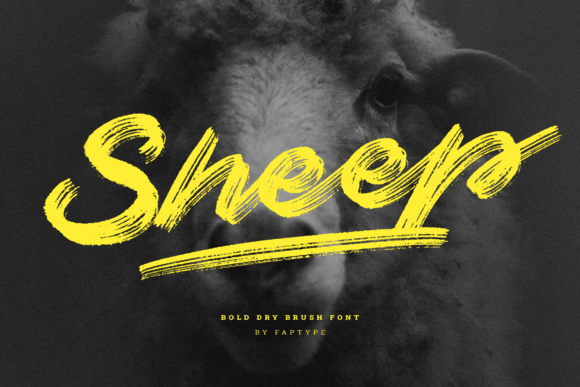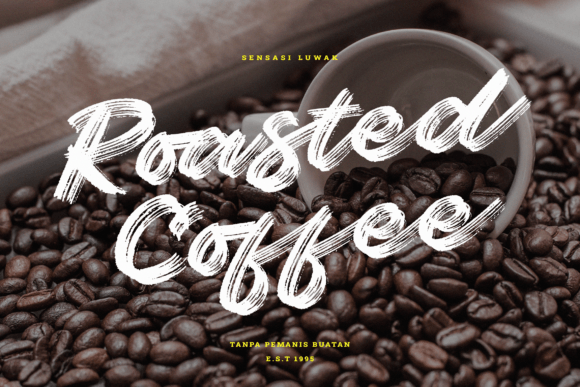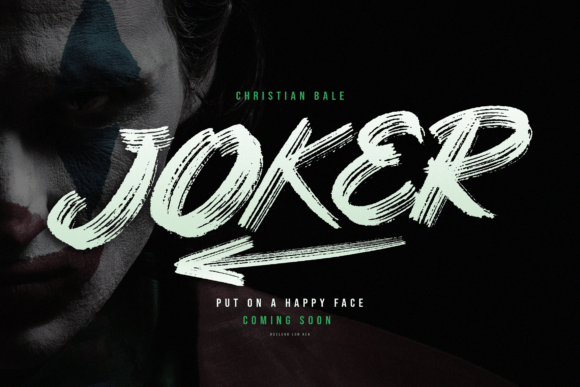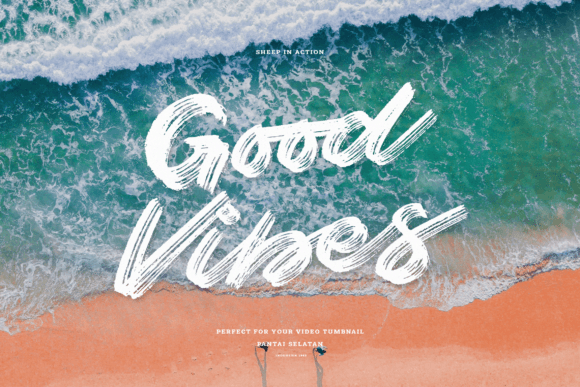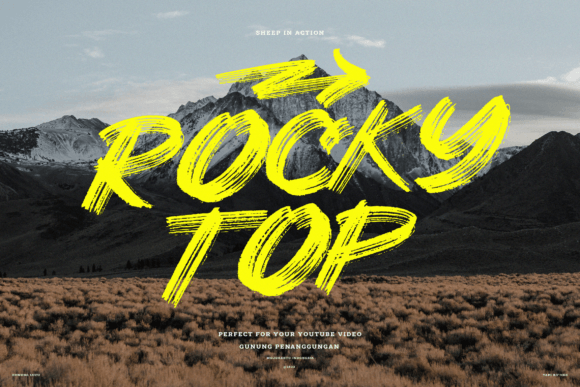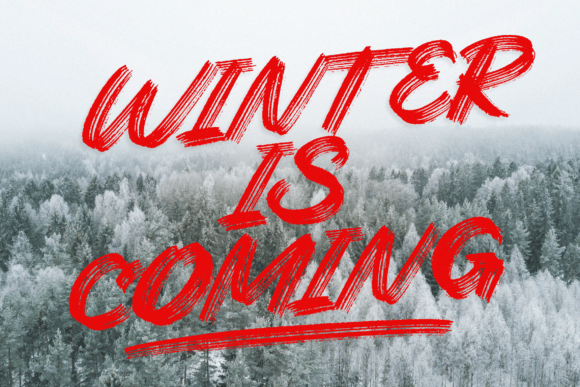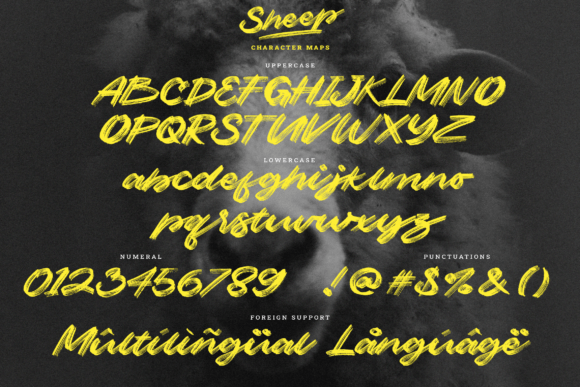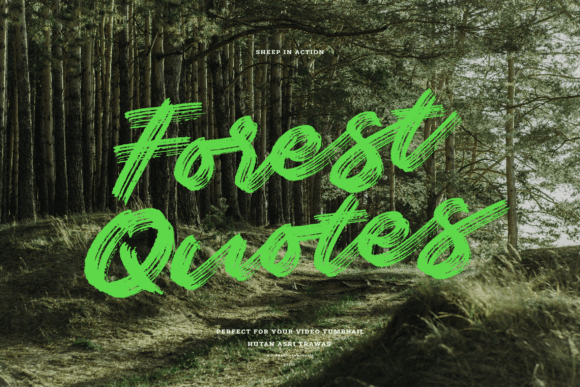
Sheep Font
Add Unique Brush Style with Sheep Font
Sheep Font is a unique dry brush handwritten typeface created using realistic brush strokes. This font brings an authentic and artistic feel to your creative projects. Whether you are designing branding materials, posters, social media graphics, or invitations, Sheep Font adds a bold and natural look that stands out.
Moreover, its textured strokes give your designs a handmade, expressive quality that captures attention and adds personality.
Versatile Uses for Sheep Font
Sheep Font works wonderfully in a variety of design projects, including:
• Branding and logo design
• Posters and flyers
• Social media graphics and promotional content
• Invitations and greeting cards
• Artistic prints and packaging
• Creative projects that need an authentic brush look
Thanks to its dry brush style, SheepFont adds a fresh, natural, and bold touch to your work.
It also features balanced spacing and kerning, ensuring your text remains readable and visually appealing across different sizes and formats.
Why Designers Choose Sheep Font
Designers and creatives love SheepFont for its unique and expressive dry brush style. It adds a handcrafted and bold personality that enhances any project. Whether you are a professional designer or a hobbyist, SheepFont helps you create memorable and eye-catching typography.
Use SheepFont to bring authenticity and artistic flair to your next creative design.